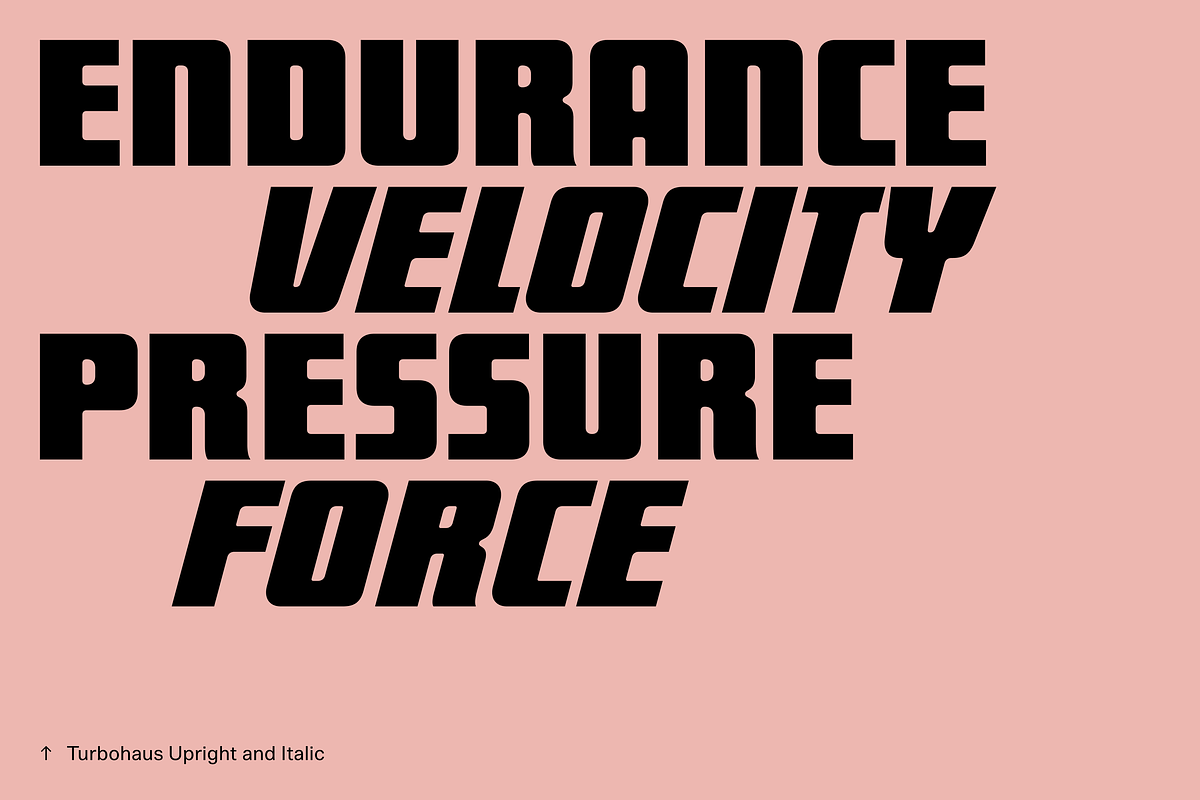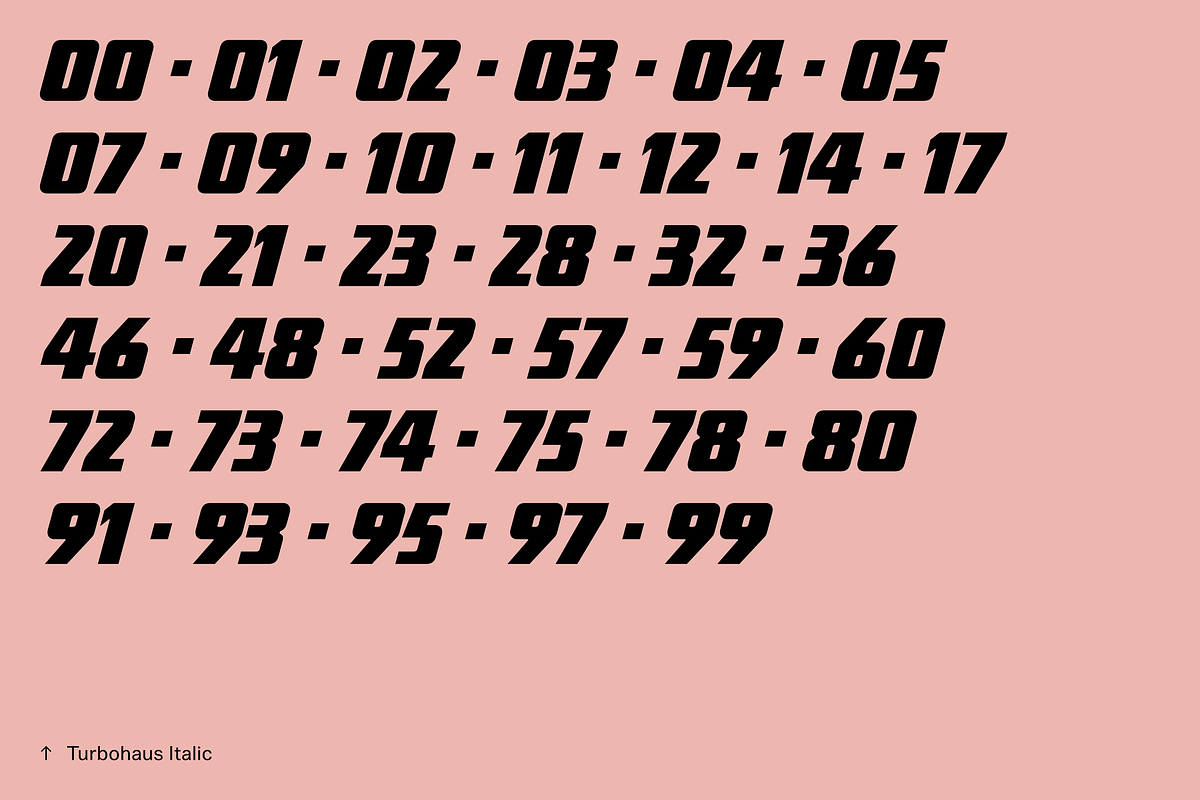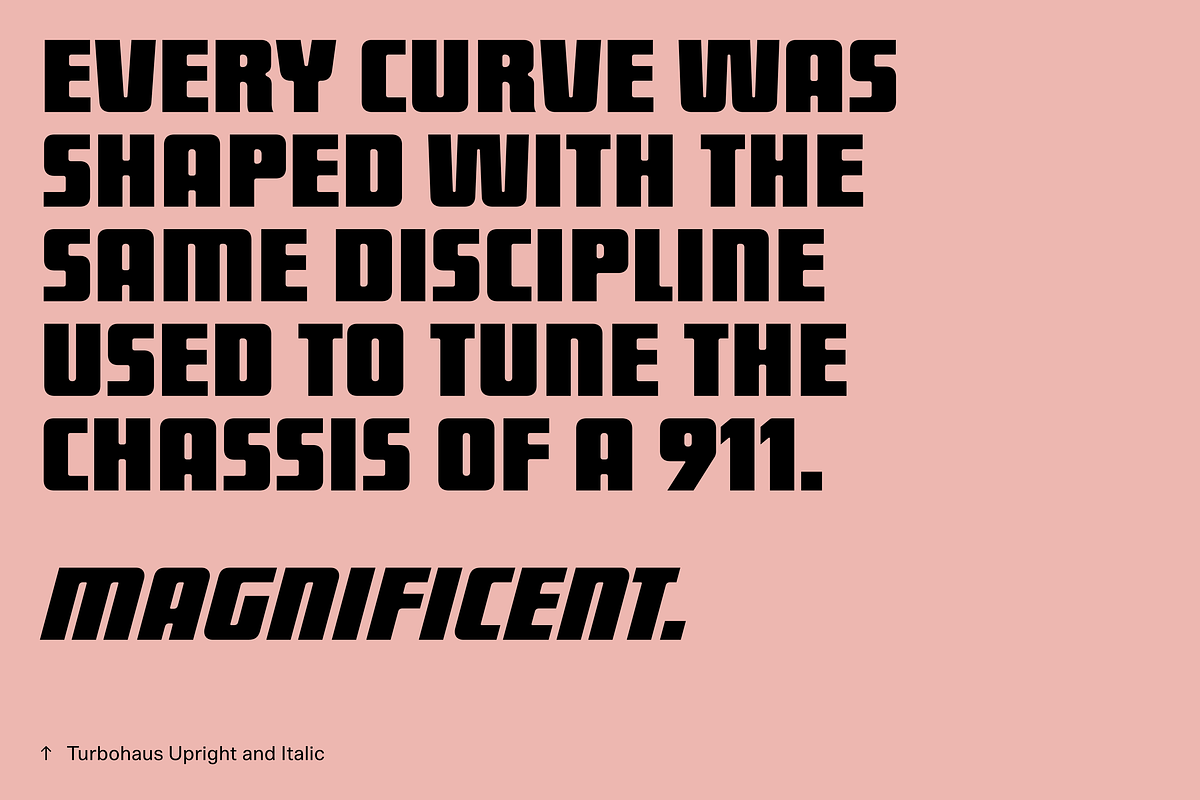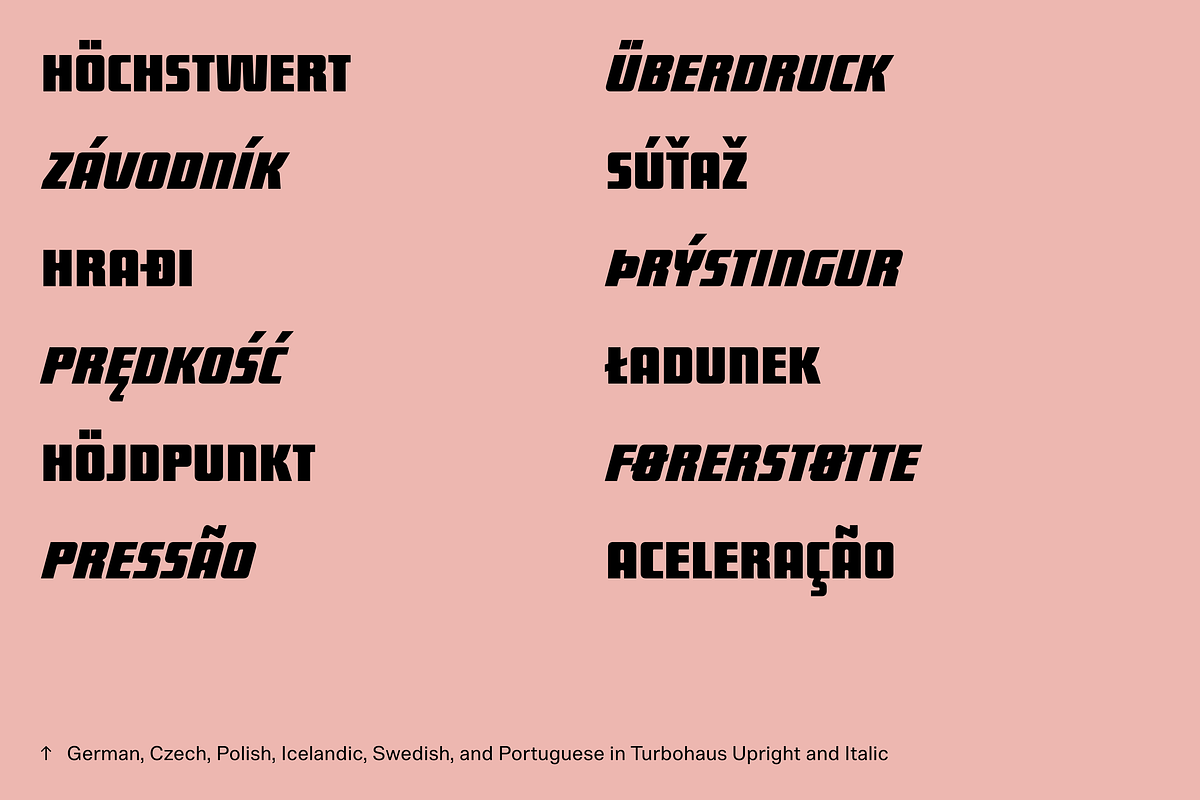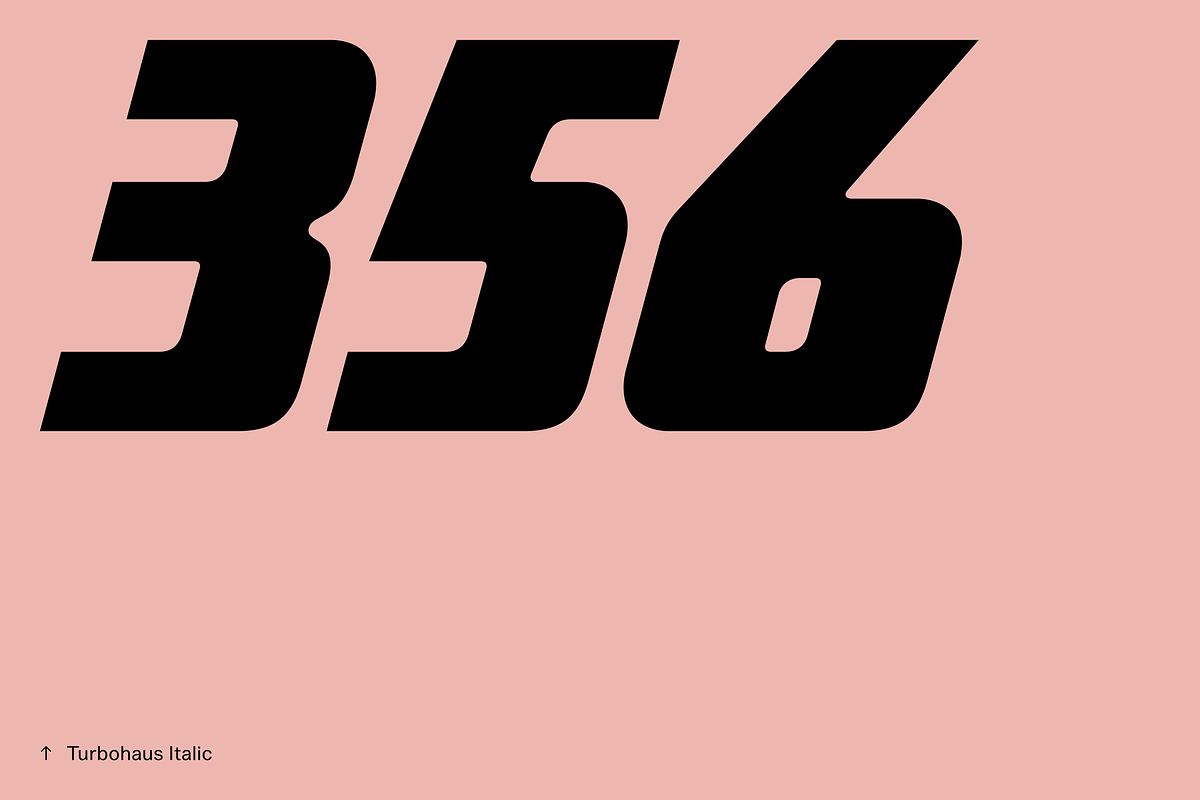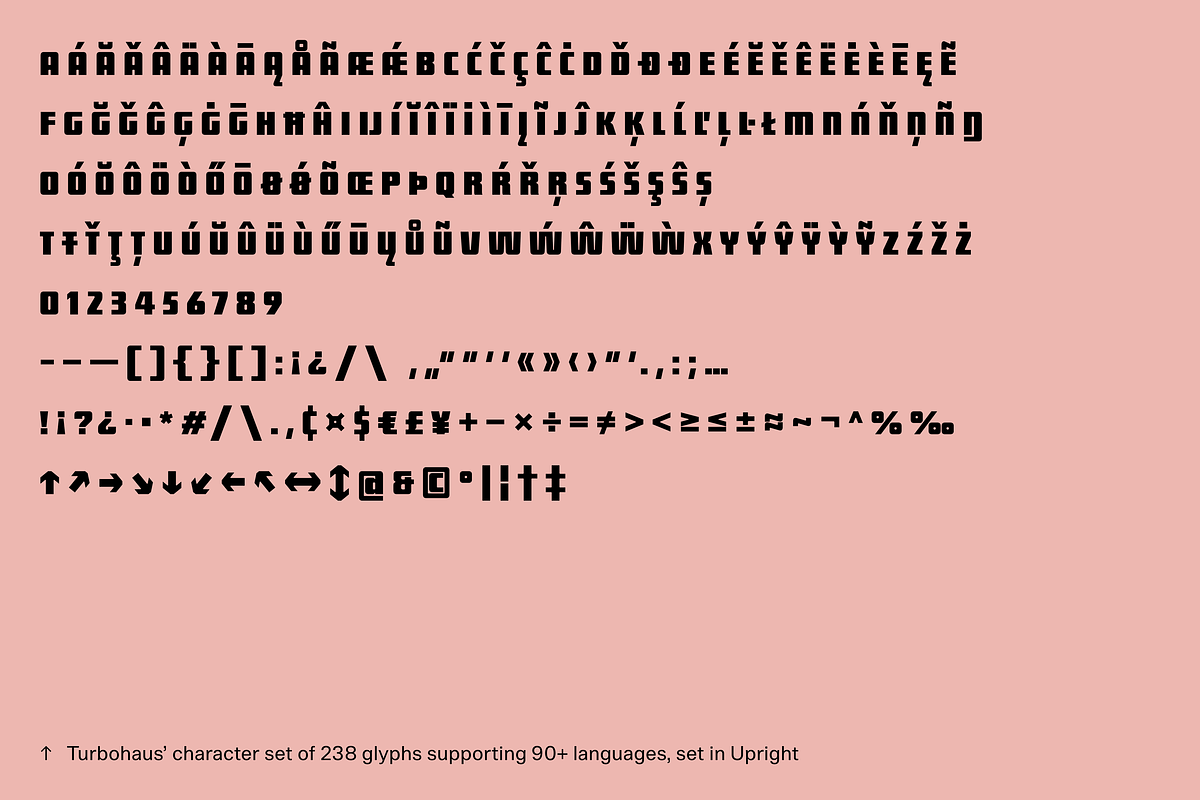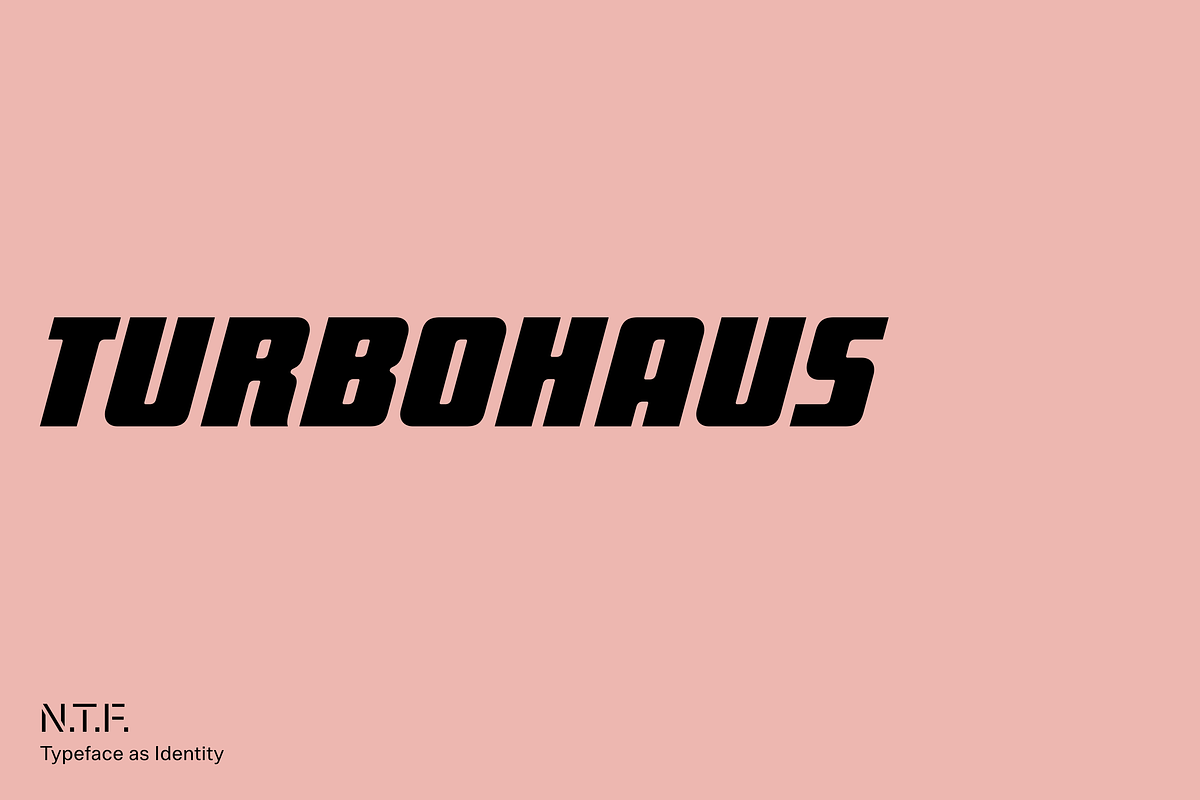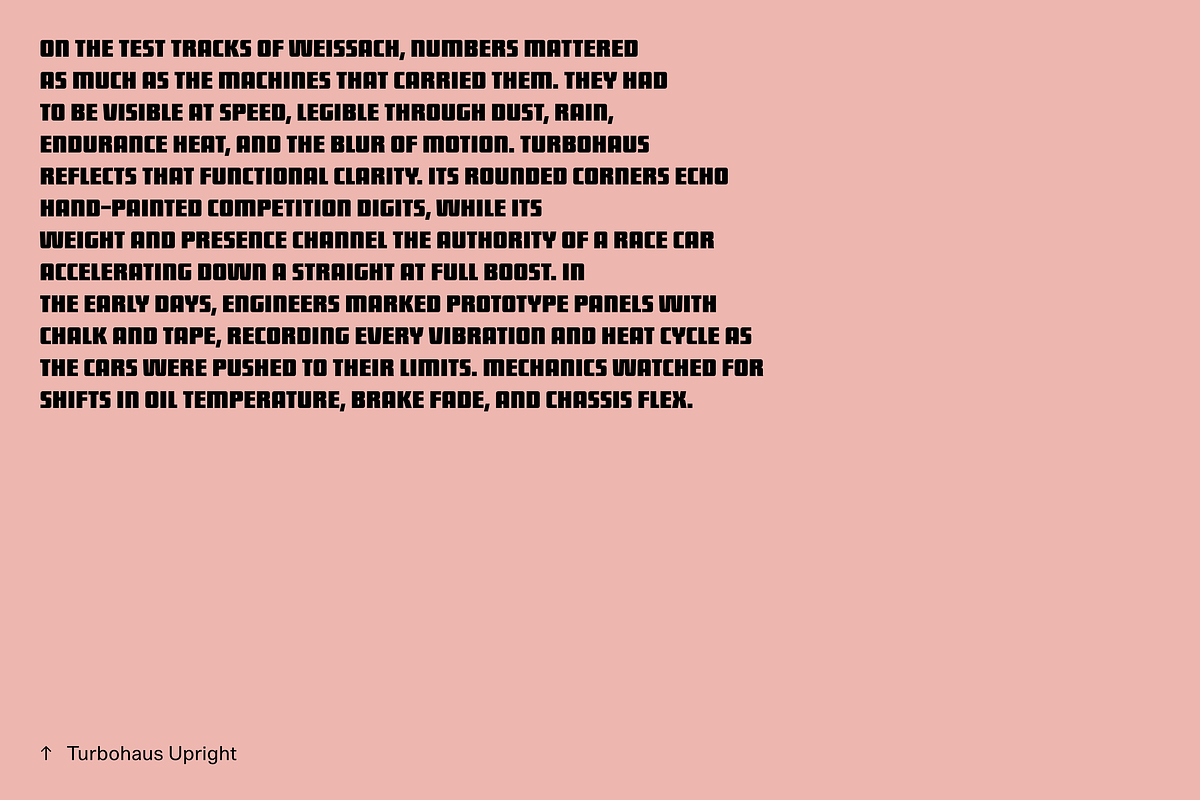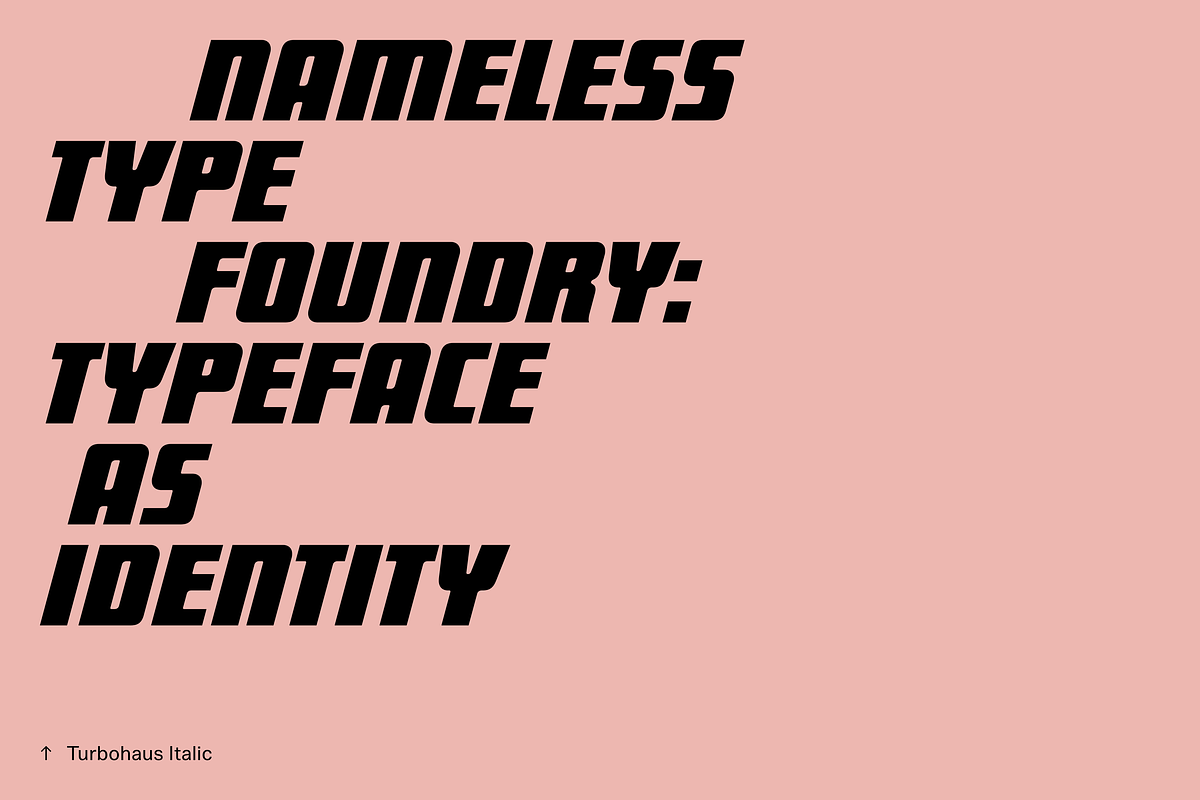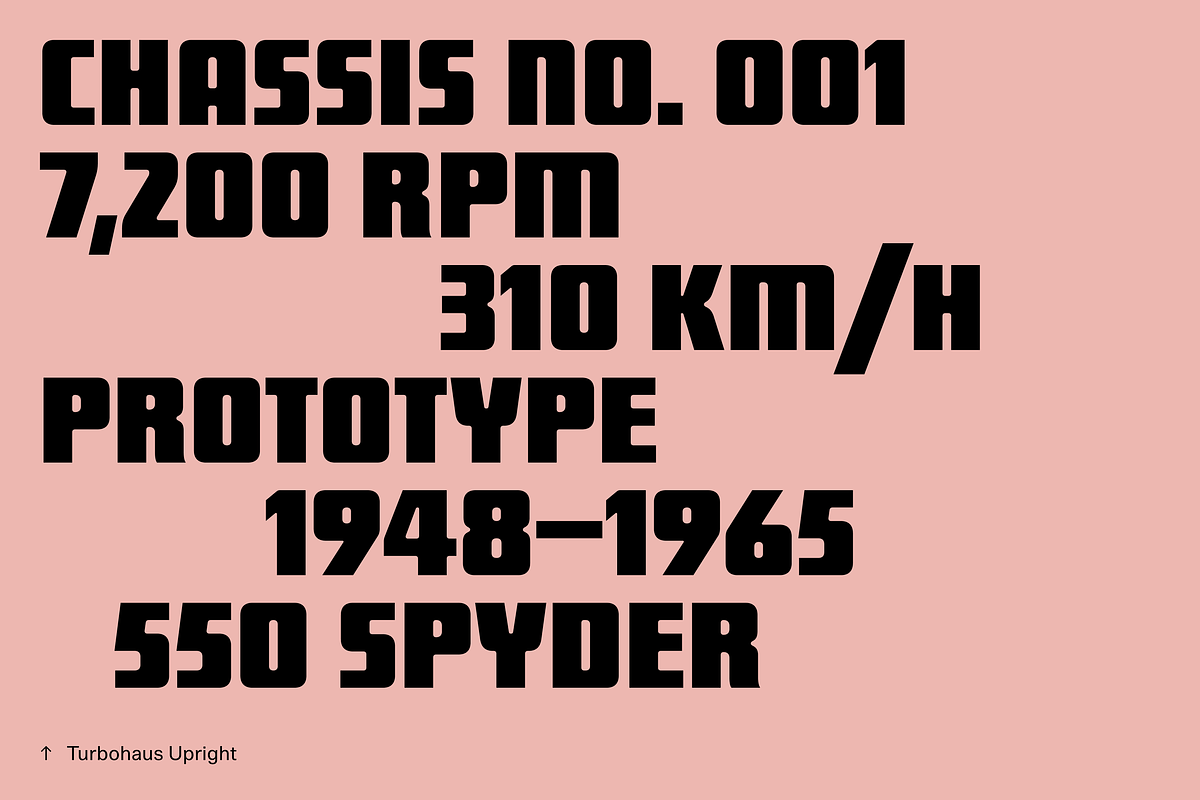
Turbohaus
Inspired by the engineering and heritage behind racecar development, Turbohaus is an all-caps display typeface shaped by rounded numerals and high-visibility markings. It draws from the letterforms found on prototypes, race cars, and test-track equipment. The characters are built for immediacy, and expected to function under motion, dust, glare, and time. In this environment, legibility was a form of engineering, and the visual language that emerged was equal parts tool and identifier.
Turbohaus translates these influences into a typographic system of bold forms, softened corners, and compact proportions that echo the analog, hand-painted approach of lettering on body panels. By constraining variation and emphasizing consistent mass, the typeface captures the steady rhythm of markings built for recognition at speed. Curves follow the logic of mechanical radii rather than expressive gesture, yielding a tone that feels sturdy, aerodynamic, and deliberately industrial.
Released in a single weight and cut in Upright and Italic, Turbohaus contains 238 glyphs and supports over 90 languages. Its clarity and structural uniformity lend it to signage, titling, wayfinding, and identity work where impact, stability, and engineered precision are central to the layout. At large sizes it asserts presence; in tighter systems it maintains order. Turbohaus is a display typeface shaped by the same functional mindset that defined the machines inspiring it.